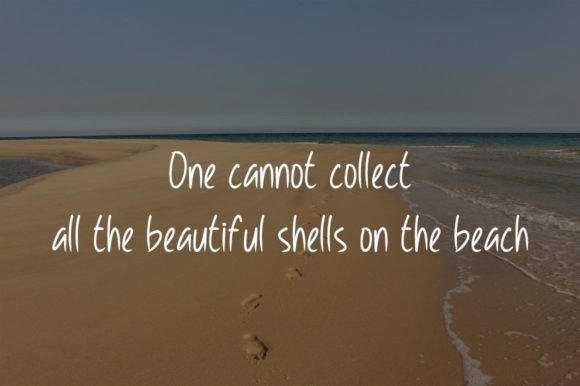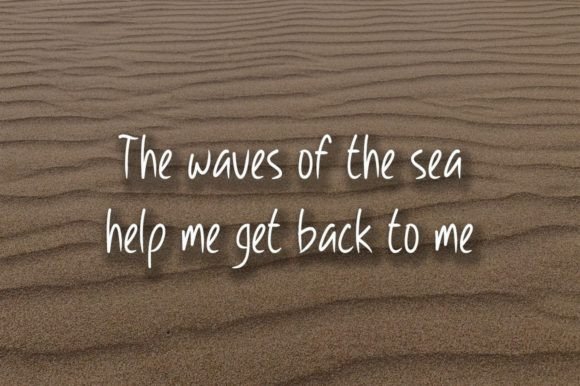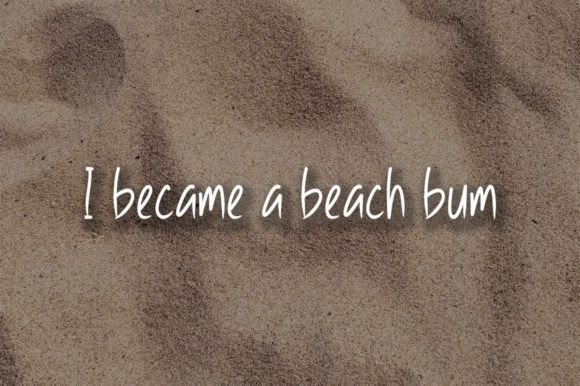
Sand Beach Font
“Sand Beach Font” is introduced as a sweet and cursive handwritten font, crafted to bring a gentle and romantic touch to a variety of design projects. Described as suitable for branding, logos, wedding-related materials, greeting cards, fashion, lookbooks, marketing promotions, and other contexts where a blend of fancy elegance and casual charm is desired.
The cursive and handwritten qualities of “Sand Beach Font” contribute to its gentle and romantic aesthetic. This style is often associated with a sense of warmth, authenticity, and personalization, making it an appealing choice for projects that seek to convey these qualities.
The font’s versatility is emphasized by its ability to seamlessly adapt to various design needs. Whether applied to branding elements, wedding-related materials, or marketing promotions, “Sand Beach Font” is intended to add an element of grace and elegance while maintaining a casual and approachable vibe.
The suggestion that it is suitable for anytime you want to look “fancy elegant but still casual” underscores its potential for a wide range of applications. This combination of qualities allows “Sand Beach Font” to be a versatile design tool for projects that aim to strike a balance between sophistication and a laid-back, friendly demeanor.
In summary, “Sand Beach Font” is more than just a font; it’s a sweet and cursive design tool ready to elevate your projects with a joyful and romantic touch. Whether you’re working on branding, wedding materials, or fashion-related designs, let “Sand Beach Font” be the font that adds a perfect blend of fancy elegance and casual charm to your creative endeavors.